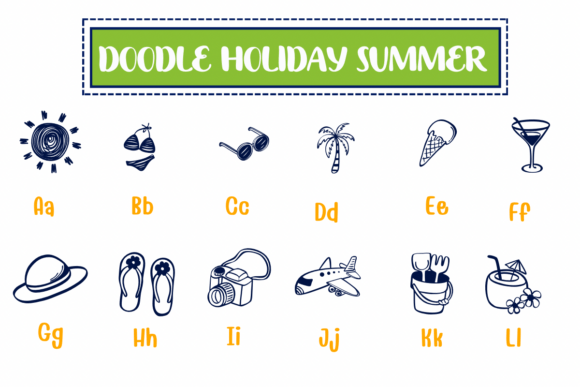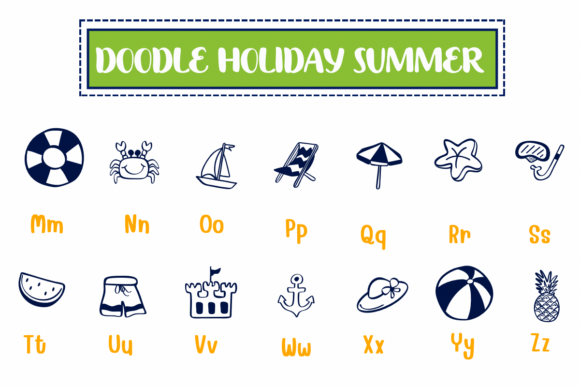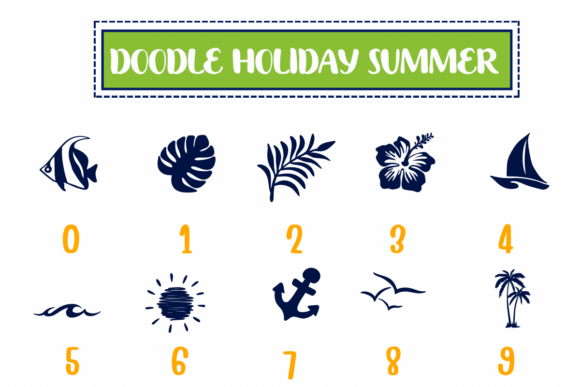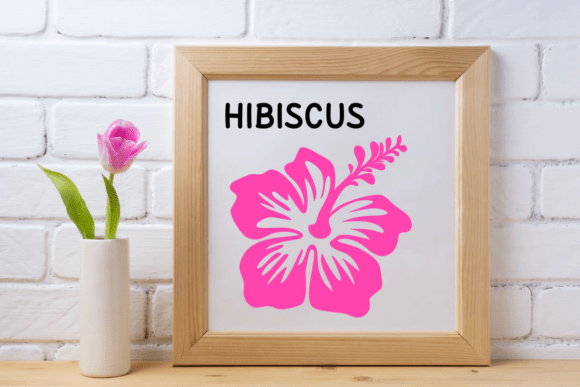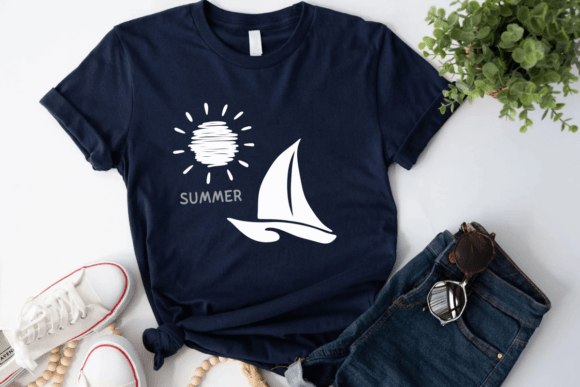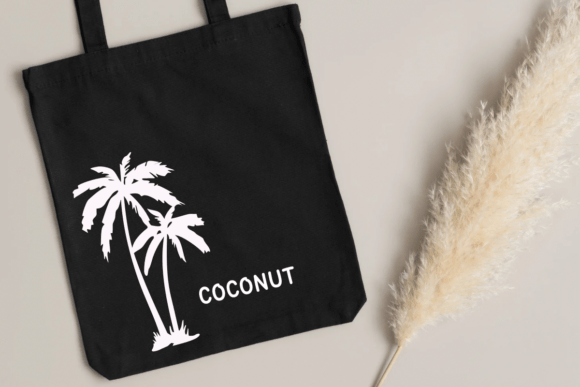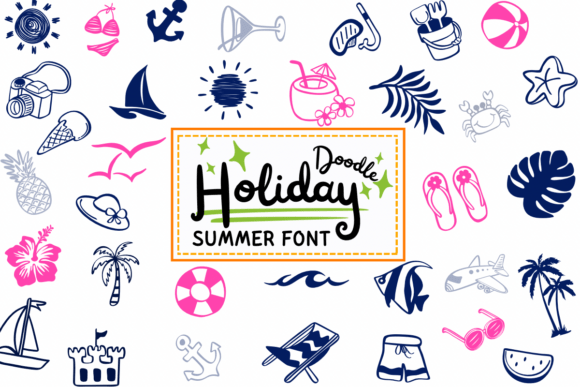
Doodle Holiday Summer Font: Bringing Sunshine and Joy to Your Designs
Are you looking for a font that captures the essence of a perfect summer vacation? Look no further than the Doodle Holiday Summer Font! This vibrant and playful dingbats font is filled with hand-drawn summer icons that will bring sunshine and joy to every project. From beach balls and flip-flops to sailboats and tropical drinks, this collection has everything you need to create fun and engaging summer-themed designs.
What is Doodle Holiday Summer Font?
Doodle Holiday Summer Font is a unique and creative font that features a wide range of hand-drawn summer icons. These icons include everything from summer activities and objects to food and drinks, making it the perfect font for any summer-themed design. The font is designed to be playful and fun, with a doodle-style aesthetic that is sure to capture the attention of your audience.
Key Features of Doodle Holiday Summer Font
- Vibrant and Playful Design: The Doodle Holiday Summer Font features a vibrant and playful design that is sure to bring a smile to your face. The hand-drawn icons are colorful and fun, making them perfect for summer-themed designs.
- Hand-Drawn Summer Icons: The font features a wide range of hand-drawn summer icons, including beach balls, flip-flops, sailboats, and tropical drinks. These icons are perfect for creating fun and engaging summer-themed designs.
- Dingbats Font: The Doodle Holiday Summer Font is a dingbats font, which means that it features icons and symbols rather than traditional letters and numbers. This makes it perfect for creating designs that require a more visual approach.
- Ideal for Summer-Themed Designs: The font is ideal for summer-themed designs, including party invites, scrapbooking, stickers, and social media graphics. It’s perfect for anyone who wants to create fun and engaging designs that capture the essence of a perfect summer vacation.
Uses for Doodle Holiday Summer Font
The Doodle Holiday Summer Font is perfect for a wide range of design projects, including:
- Summer-Themed Party Invites: Create fun and engaging party invites that capture the essence of a perfect summer vacation. Use the font to add colorful and playful icons to your invites, making them stand out from the crowd.
- Scrapbooking: Add a touch of summer fun to your scrapbooking projects with the Doodle Holiday Summer Font. Use the icons to create colorful and engaging layouts that showcase your favorite summer memories.
- Stickers: Create fun and colorful stickers that feature summer icons, such as beach balls, flip-flops, and sailboats. The font is perfect for creating stickers that are perfect for kids and adults alike.
- Social Media Graphics: Use the Doodle Holiday Summer Font to create engaging social media graphics that capture the essence of a perfect summer vacation. Add colorful and playful icons to your graphics, making them stand out from the crowd.
Tips for Using Doodle Holiday Summer Font
Here are a few tips for using the Doodle Holiday Summer Font in your designs:
- Experiment with Different Colors: The font is designed to be colorful and playful, so don’t be afraid to experiment with different colors. Try using bright and bold colors to create fun and engaging designs.
- Mix and Match Icons: The font features a wide range of hand-drawn summer icons, so try mixing and matching them to create unique and engaging designs.
- Use it with Other Fonts: The Doodle Holiday Summer Font is perfect for pairing with other fonts. Try using it with a bold and playful font to create fun and engaging designs.
The Doodle Holiday Summer Font is a vibrant and playful dingbats font that is perfect for summer-themed designs. With its hand-drawn summer icons and colorful design, it’s sure to bring sunshine and joy to every project. Whether you’re creating party invites, scrapbooking, stickers, or social media graphics, this font is perfect for anyone who wants to create fun and engaging designs that capture the essence of a perfect summer vacation.